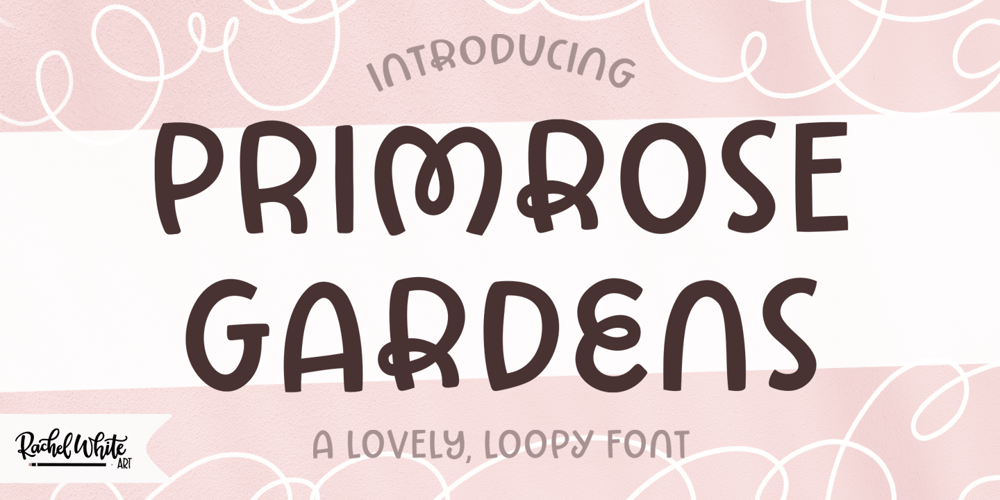
Primrose Gardens
Primrose Gardens font
Primrose Gardens Font Family was designed by Rachel White and published by Rachel White Art. Primrose Gardens contains 1 styles and family package options. Primrose Gardens is a lovely, loopy all caps font. Mix and match loopy capitals with plain jane lowercase letters for a whimsical vibe.The loopy alternates are coded as uppercase letters for ease of use. Hit shift on b, e, k, m, r, w, and y for a loopy alternate. Includes characters for Western European languages.